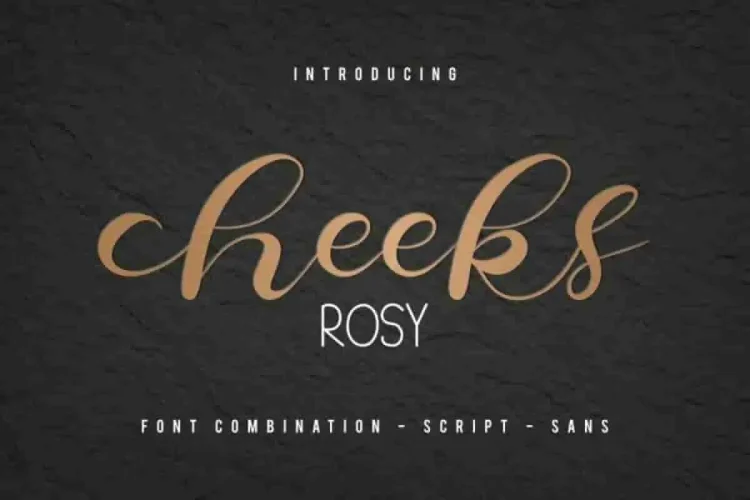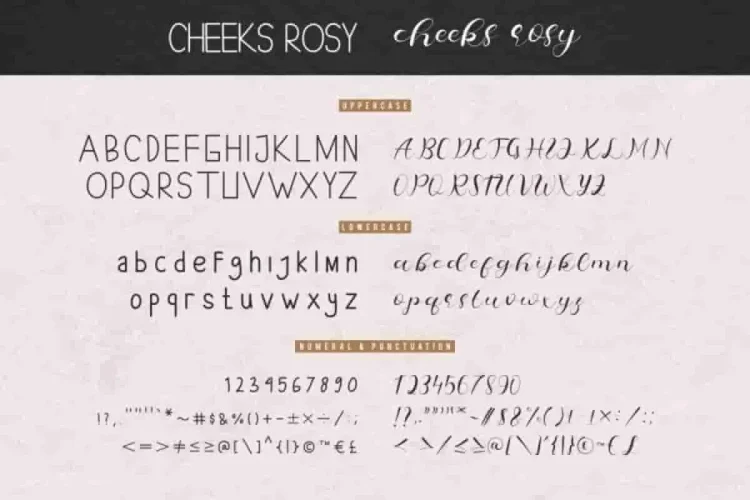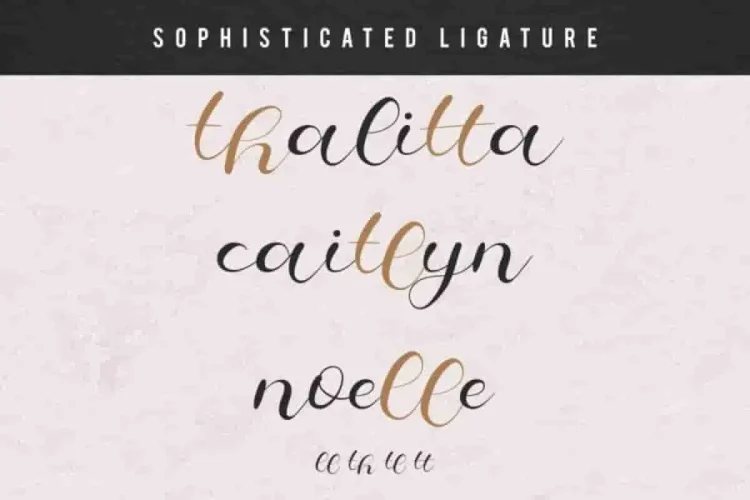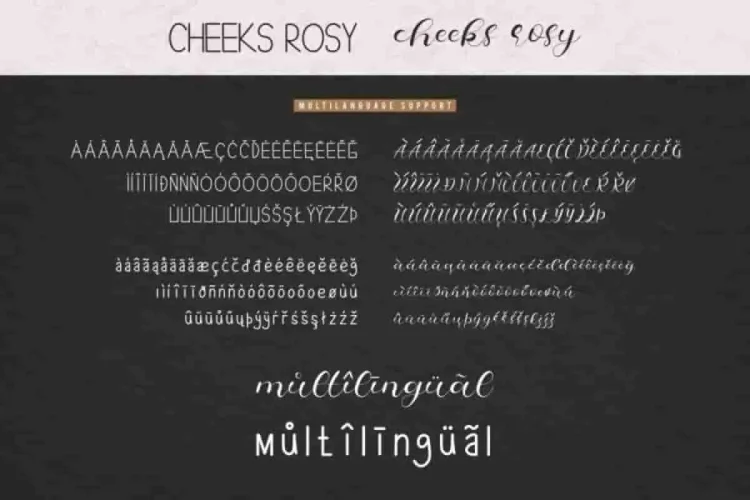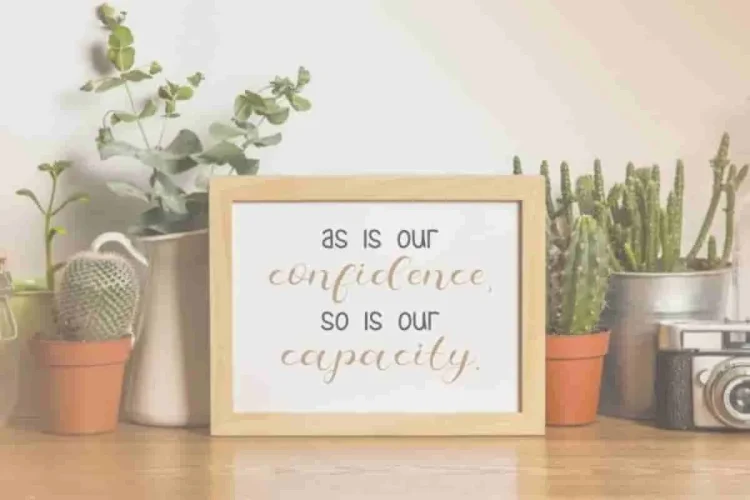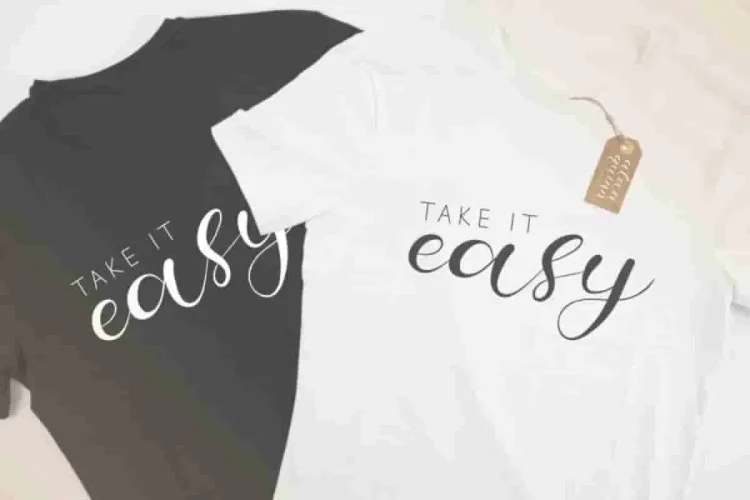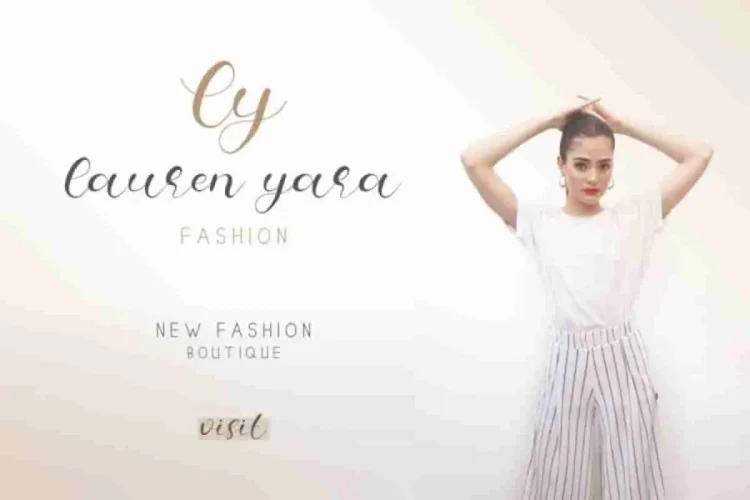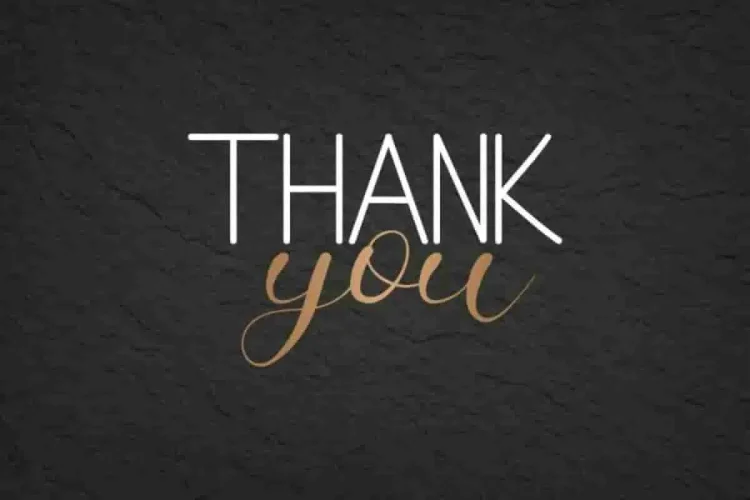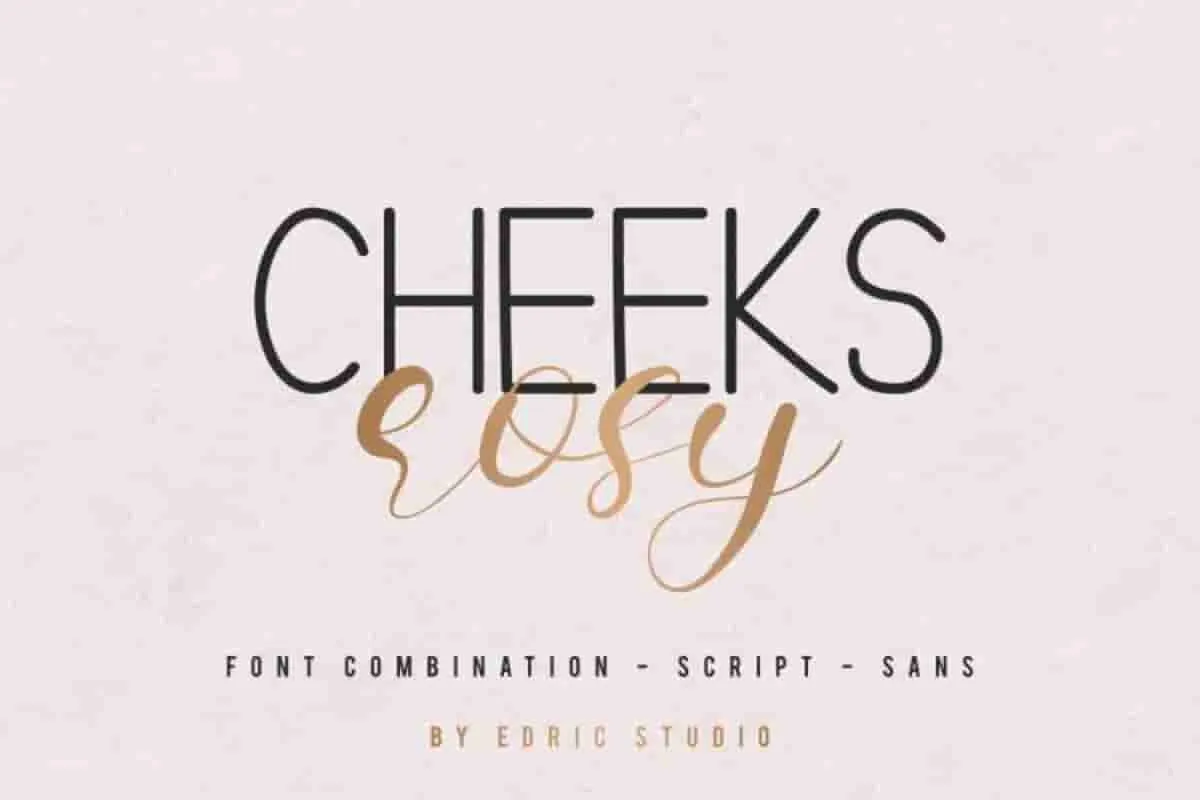
Cheeks Rosy Font Duo Typeface
It is us again : EDRIC Studio. This time, we proudly introduce the newest font  Cheeks Rosy Font Duo
In fact, this is a duo typeface, handcrafted from our Studio. Situated here in Garut and Bandung, Indonesia. This is the newest font from Three of our lovely artists : Ali, Widiyanti and Suci. :)
Specifically, Cheeks Rosy Font Duo is an exclusive duo typeface with unique and elegant styles. Moreover, this font has a stunning characters set, perfectly managed with well spaced and kerning. As a result, the style character of this font is elegant, stylish, sophisticated and classic pen writing lines. Therefore, you won’t find a font like Cheeks Rosy Font Duo anywhere else.
To begin with, Cheeks Rosy Font Duo comes with two different typeface styles: Display Sans Serif and Script hand Calligraphy. Cheeks Rosy Font Duo works beautifully for a wide range of projects (extended license), including : branding, logo, stationery, business card, signage, flyer, brochure etc. Furthermore, almost all industries will find this typeface a perfect match — from weddings and events to, real estate, architect, law firm, florist, gardening, makeup artist, travel, hotel, musician etc